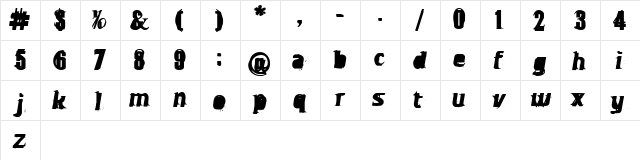
Design Context for OverBored Typeface
OverBored is a composed and adaptable typeface that performs quietly and consistently across a wide range of design contexts.
Pro Tip: Pair OverBored with a font of contrasting weight or personality to build a more expressive typographic hierarchy.